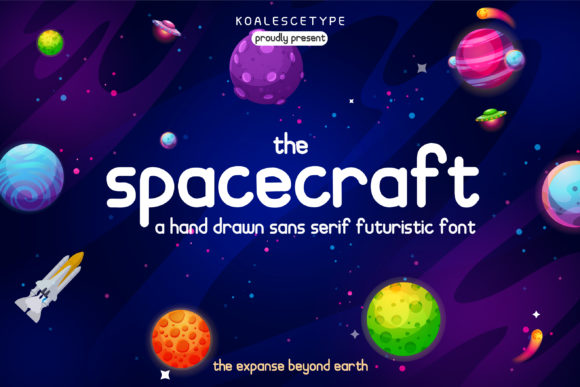
Transport your designs to uncharted territories with Spacecraft, a display font that ignites the imagination and empowers your creativity. This celestial typeface takes you on an interstellar journey, leaving your audience spellbound and your designs light-years ahead.
With its clean, crisp lines and otherworldly charm, Spacecraft carries your message through the digital cosmos, making a bold statement wherever it lands. Turn dull text into supernovae of expression, capturing attention like a shooting star against the night sky.
Beam your message to the forefront of design, reaching new audiences with this font that's out of this world. It's the perfect typeface for web designs that orbit around innovation, business cards that leave a lasting impression, and any project that demands a touch of the extraordinary.
So, strap yourself in for a cosmic adventure and let Spacecraft's gravitational pull transform your designs into stellar masterpieces. Embrace the future of design, one character at a time, and make your mark on the digital expanse.